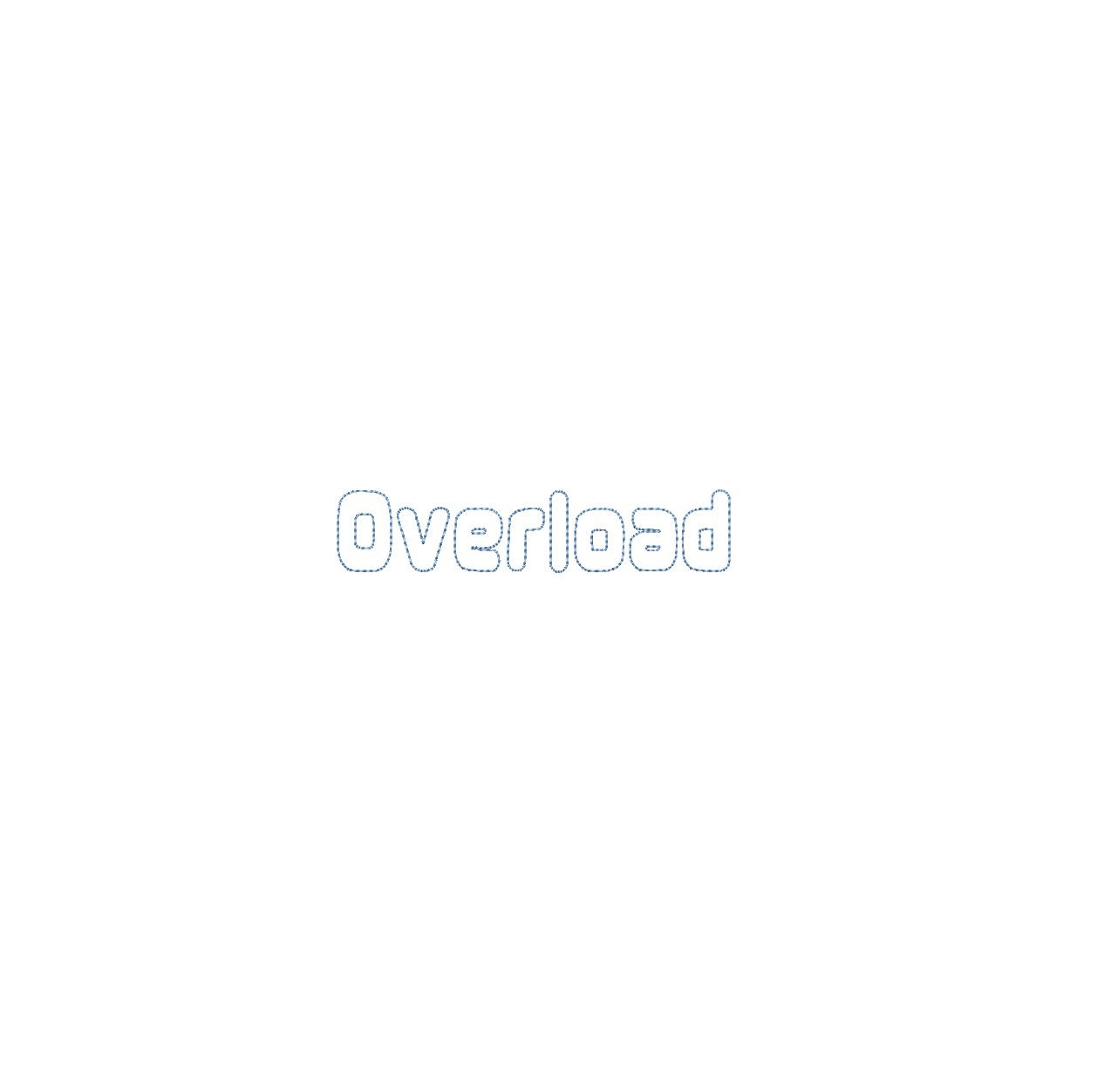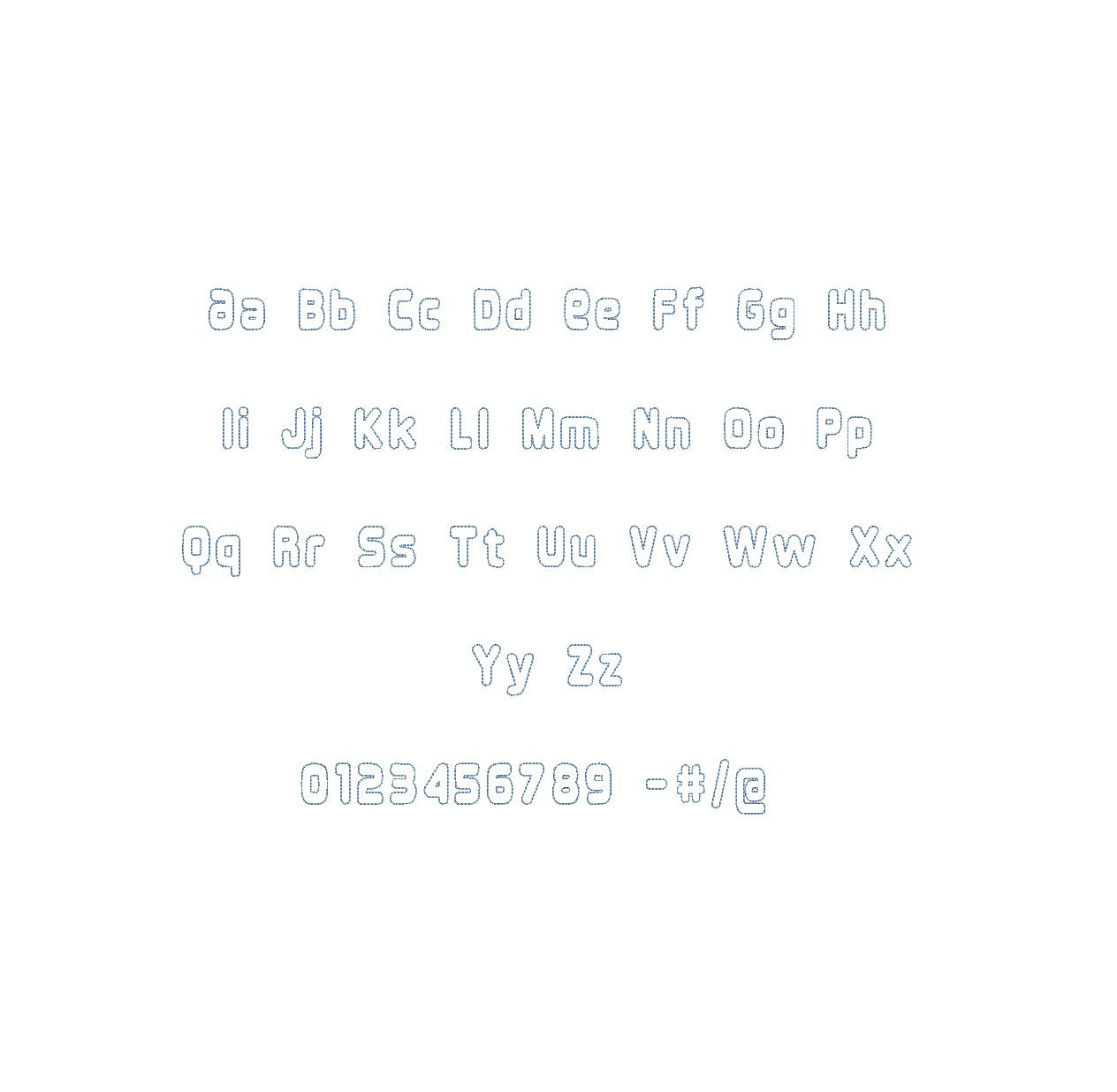
Elevate your embroidery with the Overload Bean Outline ESA font. Designed for Wilcom Studio e4.5.6 and Hatch 3 versions and up, this font seamlessly merges boldness and precision. Infuse your designs with a unique aesthetic, perfect for impactful monograms and embellishments. Experience seamless compatibility for exceptional results. Unleash a new level of stitching finesse with the Overload Bean Outline ESA font – your key to captivating designs that radiate strength. Transform your creations into embroidery masterpieces that command attention. Elevate your projects with the Overload Bean Outline ESA font and make your embroidery truly powerful and striking.